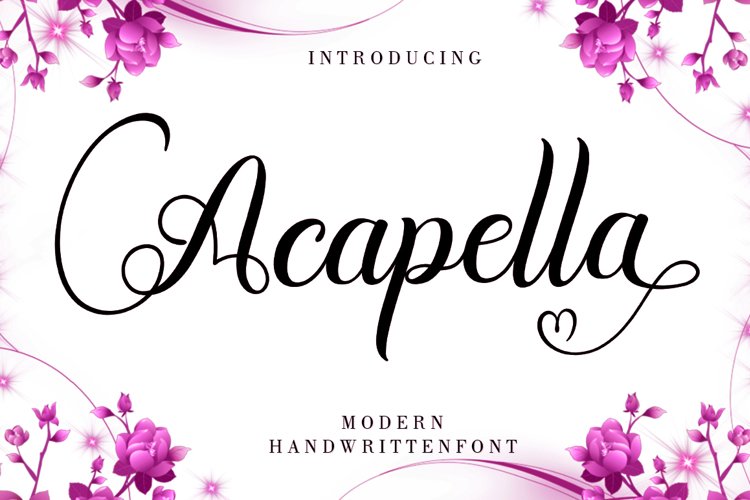
Acapella Script is a modern handwritten font with handwritten suitable for invitations, logo, product packaging, wedding invitations, branding, headlines, signage, labels, signature, book covers, posters, quotes and more.This font replaces all lowercase letters, also comes with ligatures and unique and beautiful alternatives as well as international support for most western languages.